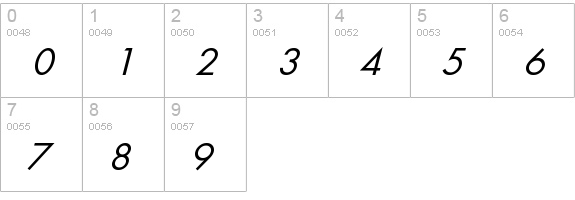
FuturaObl-Norma Font Details
FuturaObl-Norma is a modern and sleek font that exudes sophistication and elegance. With its unique oblique design, this font adds a touch of flair to any project. Its clean lines and geometric shapes make it perfect for conveying a sense of professionalism and style. What sets FuturaObl-Norma apart is that it is not only visually striking but also versatile and easy to read. Whether used for headlines, body text, or graphic design elements, this font always delivers a polished and contemporary look. The best part is that FuturaObl-Norma is available for free download at FontsMarket.com. This means you can elevate your designs without any added cost. Don't miss out on the opportunity to enhance your projects with this stunning font. Download FuturaObl-Norma today and let your creativity shine!